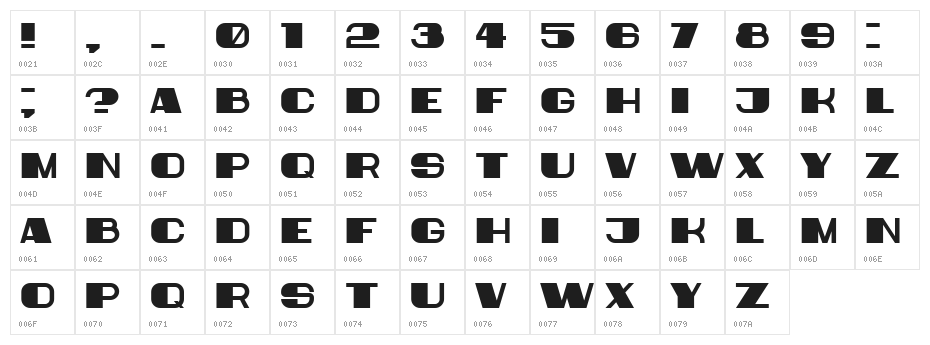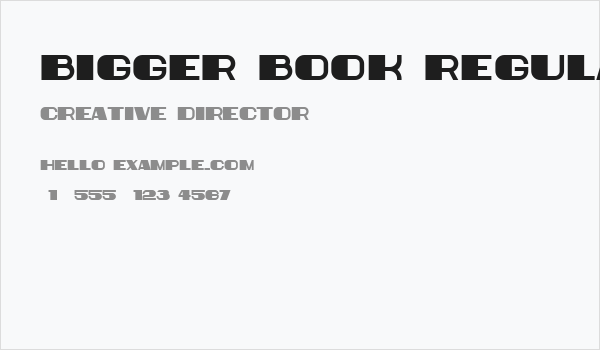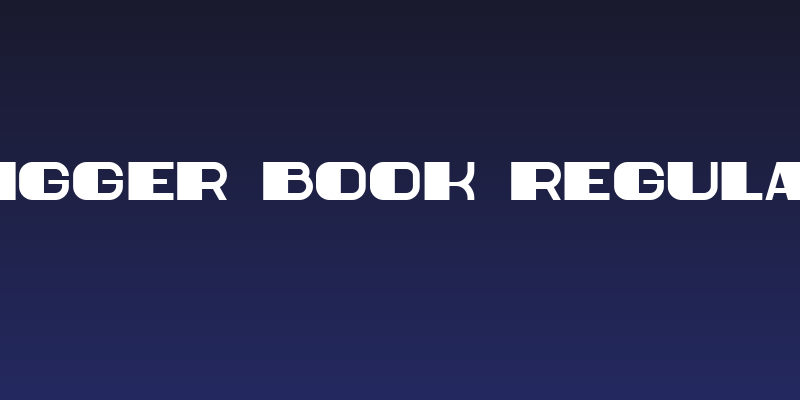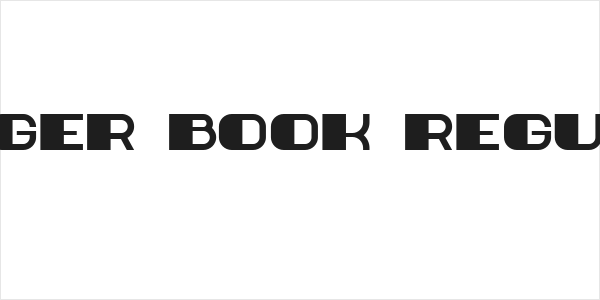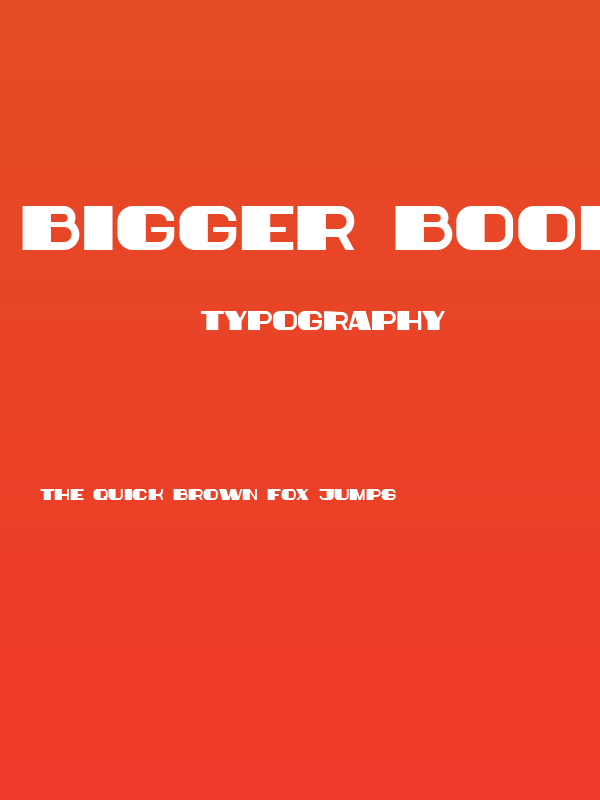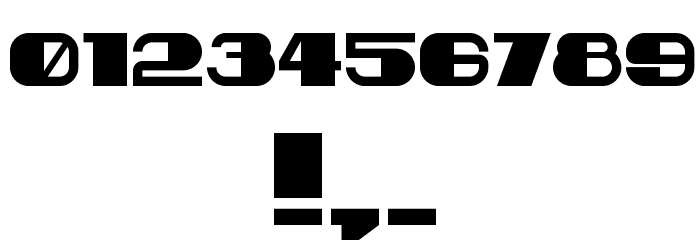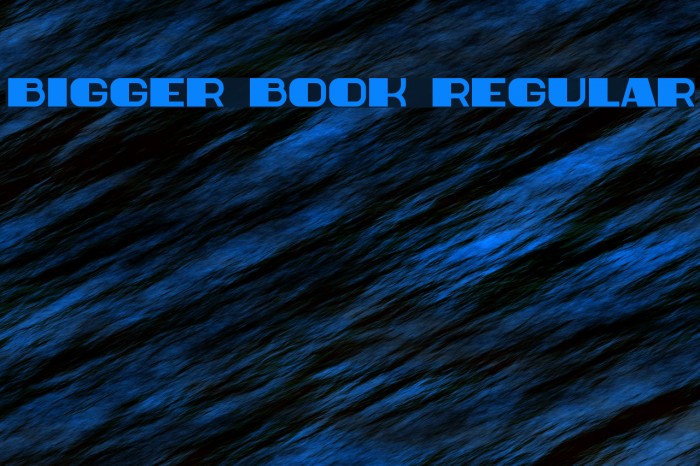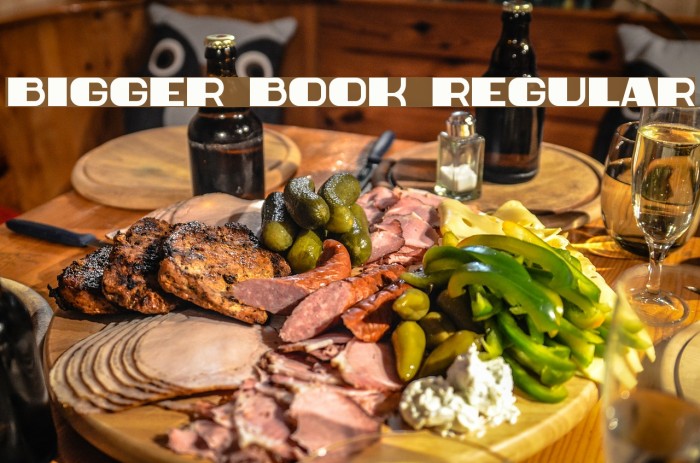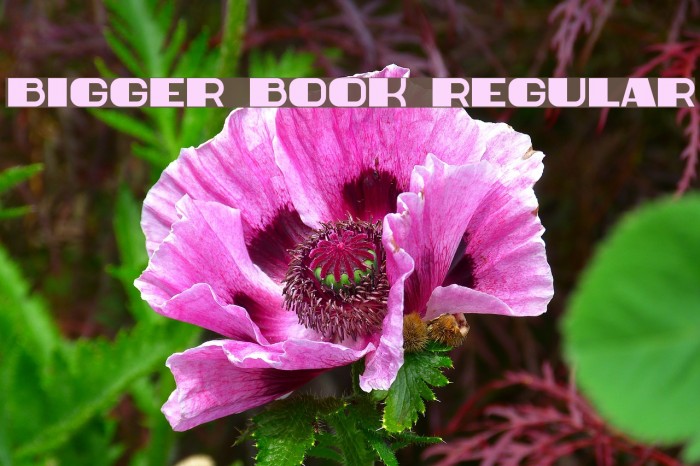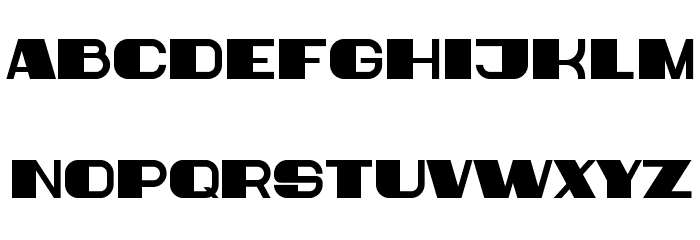
Bigger Book Regular Font
Bigger Book Regular Description
This font features a bold and striking design with thick, block-like characters that convey a sense of strength and modernity. The uppercase letters are uniform in height, with a consistent width that gives the font a balanced appearance. The numerals are equally bold, ensuring readability and impact. Special characters are designed with the same boldness, maintaining the overall aesthetic. The font's geometric shapes and clean lines make it ideal for projects that require a strong visual presence.
| Proposed Projects | Ideal for headlines, posters, branding, and any design needing a strong, impactful typeface. |